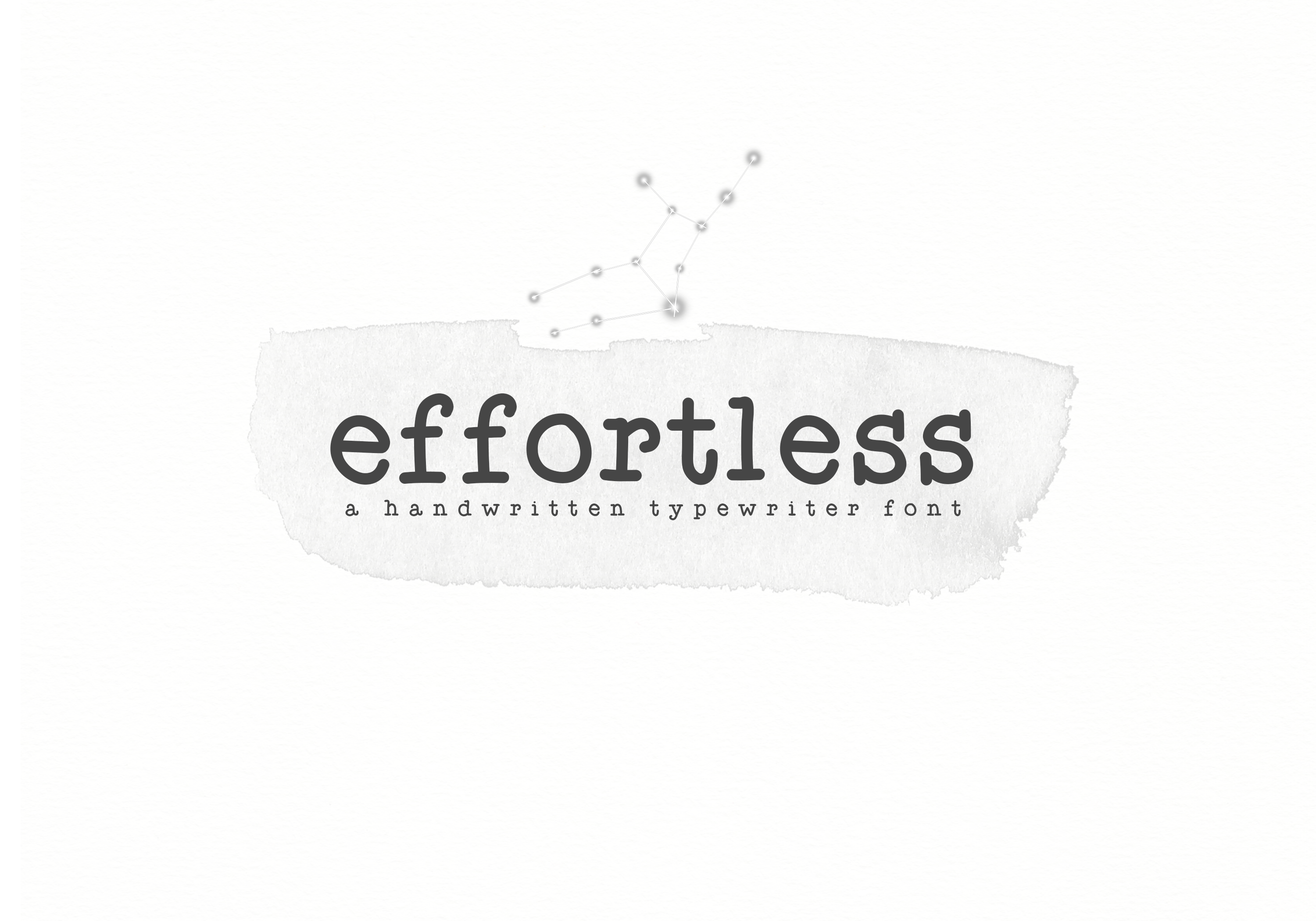
Effortless is a handwritten font with a messy, typewriter look.
This font is perfect for quotes, headings, blogs, logos, invitations and more!
This font does include accent characters.